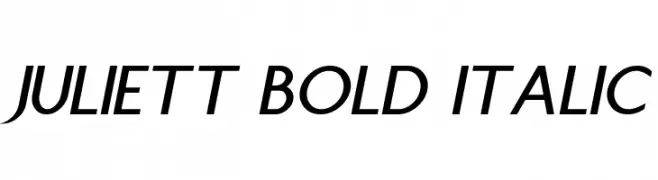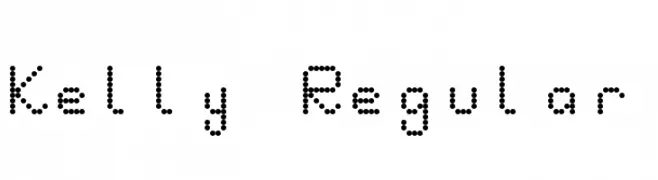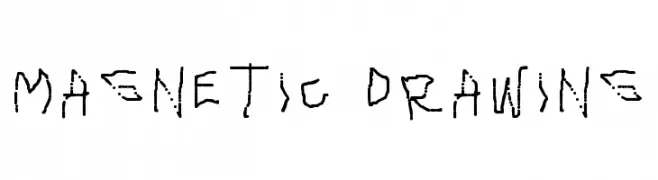
A decorative font with a knitted, sweater-like appearance.
A bold, geometric font with a modern and clean aesthetic.
A bold and italicized font with smooth, elegant strokes and moderate contrast.
A sleek, modern italic font with clean lines and elegant curves.
A sleek, modern font with geometric structure and clean lines.
A playful, dotted font with a unique and informal style.
A bold, geometric font with angular shapes and consistent design.
A bold, italic font with a modern, angular design.
A playful, hand-drawn font with a magnetic drawing board style.
A bold, geometric font with a digital, pixelated style.